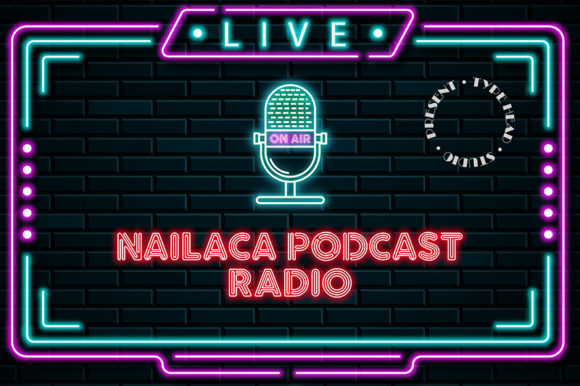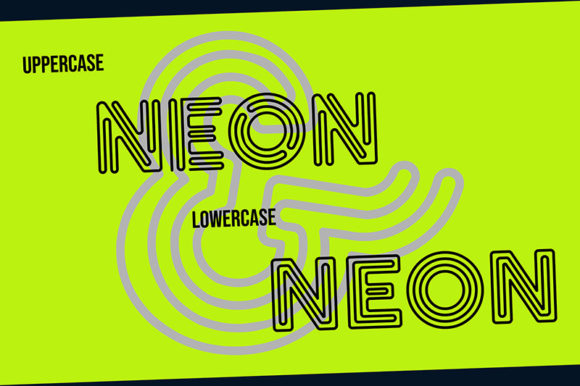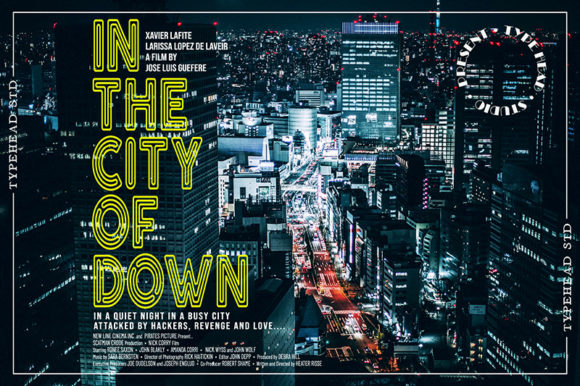
Introduction to Neon Quebec Font
As a designer, you know the rush of excitement when you stumble upon the perfect font to elevate your creative project. It’s that moment when all the elements come together, and your design shines with a unique personality. For many of us, that moment is often triggered by the nostalgic glow of retro neon signs, a symbol of a bygone era that still captivates us today.
Enter the Neon Quebec Font, a stunning display font that embodies the essence of that retro neon style, yet feels refreshingly modern. With its elegant, high-quality design and transparent background, this font is a valuable resource for designers looking to add a touch of futurism to their projects.
Whether you’re working on a futuristic concept, a neon-lit poster, or a sleek website, the Neon Quebec Font is sure to inspire your creativity. And the best part? It’s available for free download, making it an accessible design resource for designers of all levels.
Key Features of Neon Quebec Font
- High-quality design: The Neon Quebec Font is a premium design resource that offers a unique and stylish aesthetic, perfect for creative projects.
- Transparent background: This font features a transparent background, allowing for easy layering and customization in your design work.
- Unique characteristics: The Neon Quebec Font features a distinctive, neon-inspired design that adds a touch of creativity and flair to any project.
- Design versatility: This font is ideal for a variety of design projects, including graphic design, digital art, and even web design.
Honest Review: Neon Quebec Font
I recently had the chance to play around with the Neon Quebec Font, and I must say it’s a great addition to any designer’s toolkit. The high quality of this font is immediately apparent, with crisp lines and vibrant colors that are perfect for any creative project.
One of the things that really stands out about the Neon Quebec Font is its transparent background, which makes it super easy to work with and customize. The free download is a definite bonus, making it a great resource for designers on a budget.
- High quality and crisp lines
- Vibrant colors that really pop
- May not be suitable for projects that require a more subtle aesthetic
- Can be a bit overwhelming with too much visual noise
Overall, I’m really impressed with the Neon Quebec Font. It’s a fun and creative design resource that’s perfect for designers who want to add a bit of flair to their projects. With its high quality and transparent background, it’s a great choice for anyone looking to take their designs to the next level. ✨
To get the most out of the Neon Quebec Font, use it on a transparent background to create a striking visual effect. You can also experiment with different font sizes and colors to achieve the desired look.
The Neon Quebec Font is ideal for a wide range of creative projects, including:
Posters and flyers
Graphics and logos
Presentation slides and documents
Web design and development
Nimbus Sans
Nimbus Sans is a free download font that offers a clean and modern design. It features a transparent background and is suitable for a wide range of creative projects, from brochures to websites. When to use: Nimbus Sans is ideal for projects requiring a professional and minimalist look. Compared to Neon Quebec Font, Nimbus Sans has a more subtle appearance, making it suitable for designs where a bold font is not necessary.
Does the Neon Quebec Font have a transparent background?
Yes, the Neon Quebec Font is often designed with a transparent background, making it ideal for use on images or backgrounds with a different color or texture. This allows you to create a seamless and professional-looking design. However, the transparency of the font may vary depending on the specific font file and the software you’re using to render it.